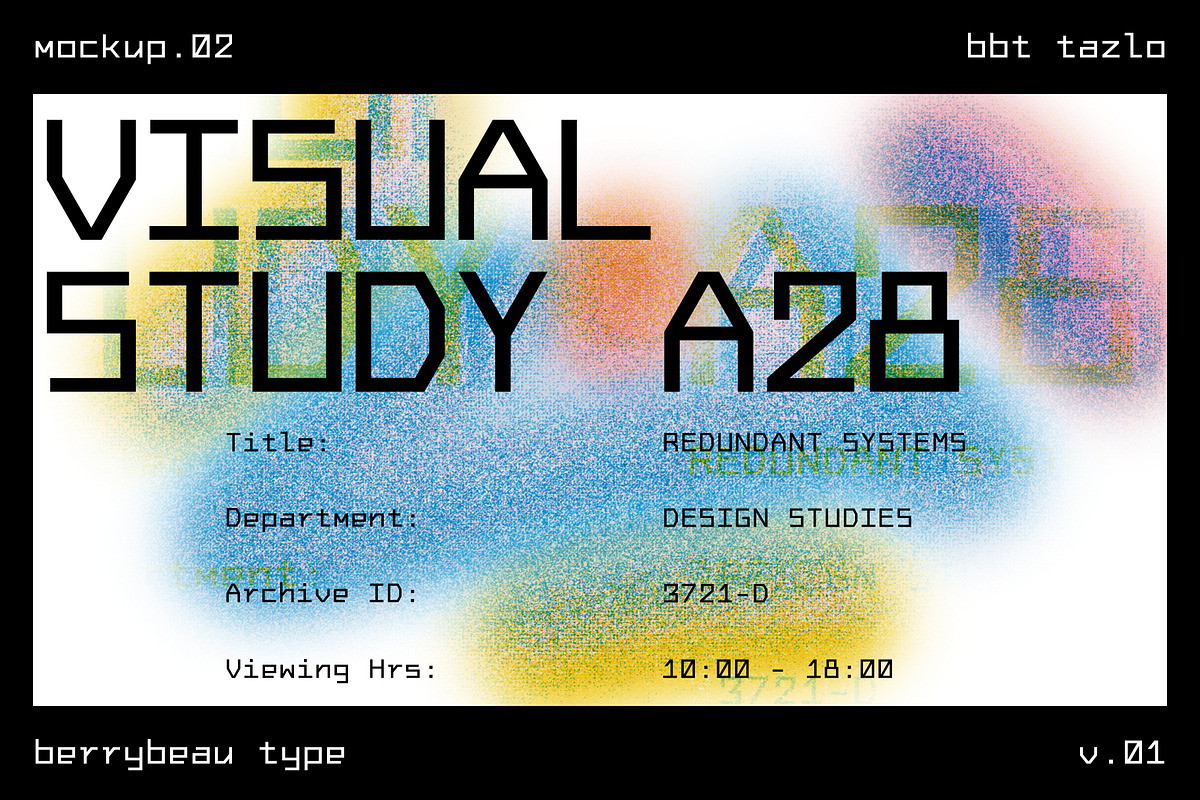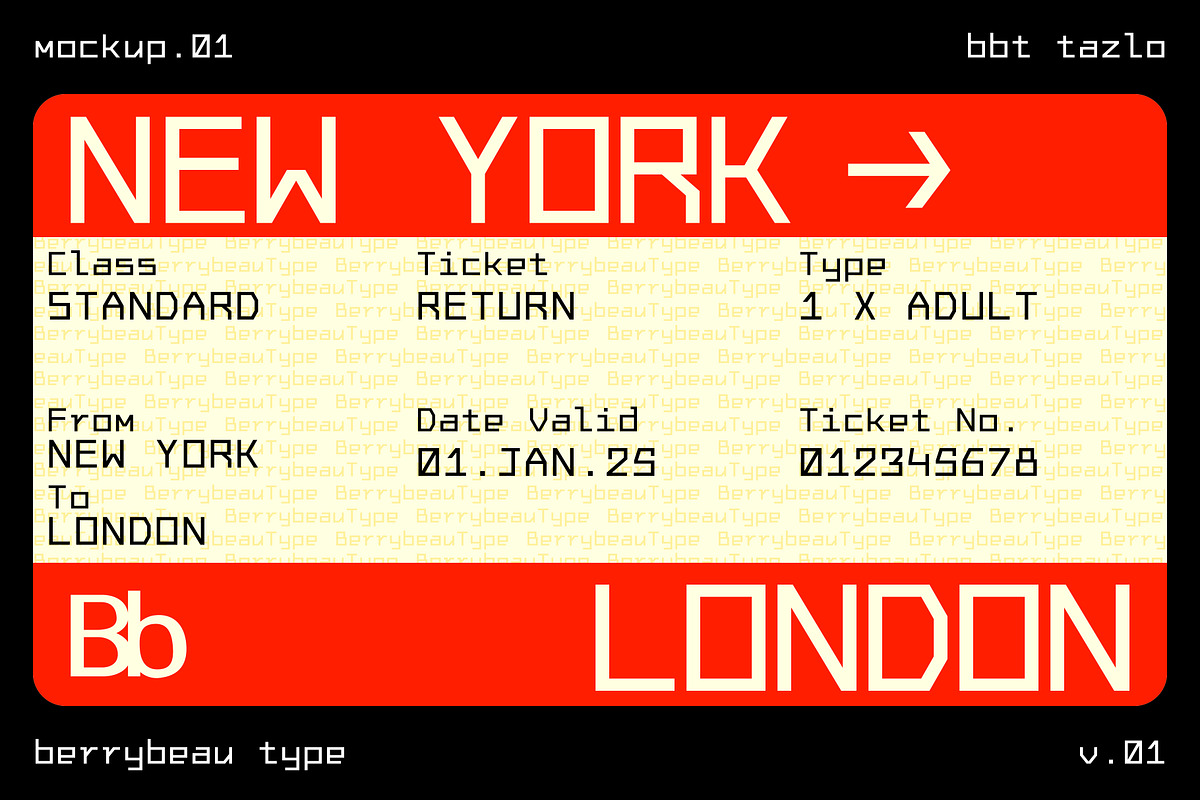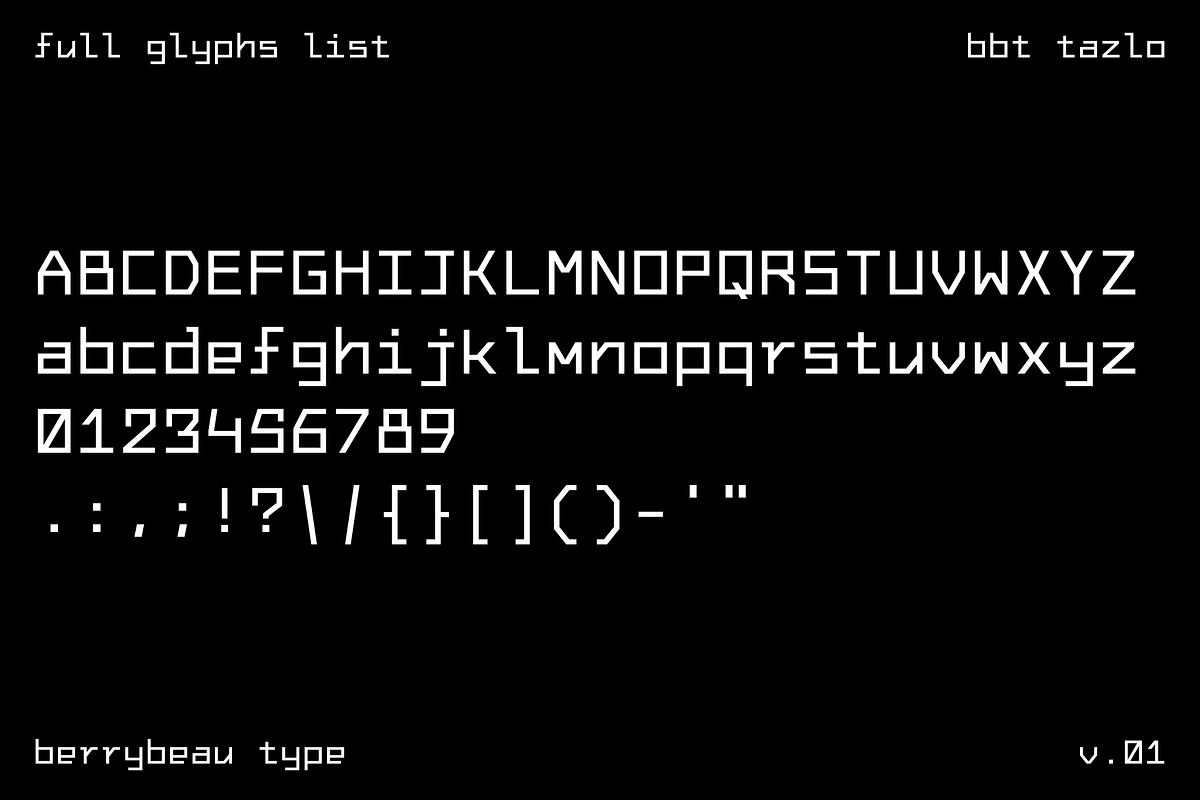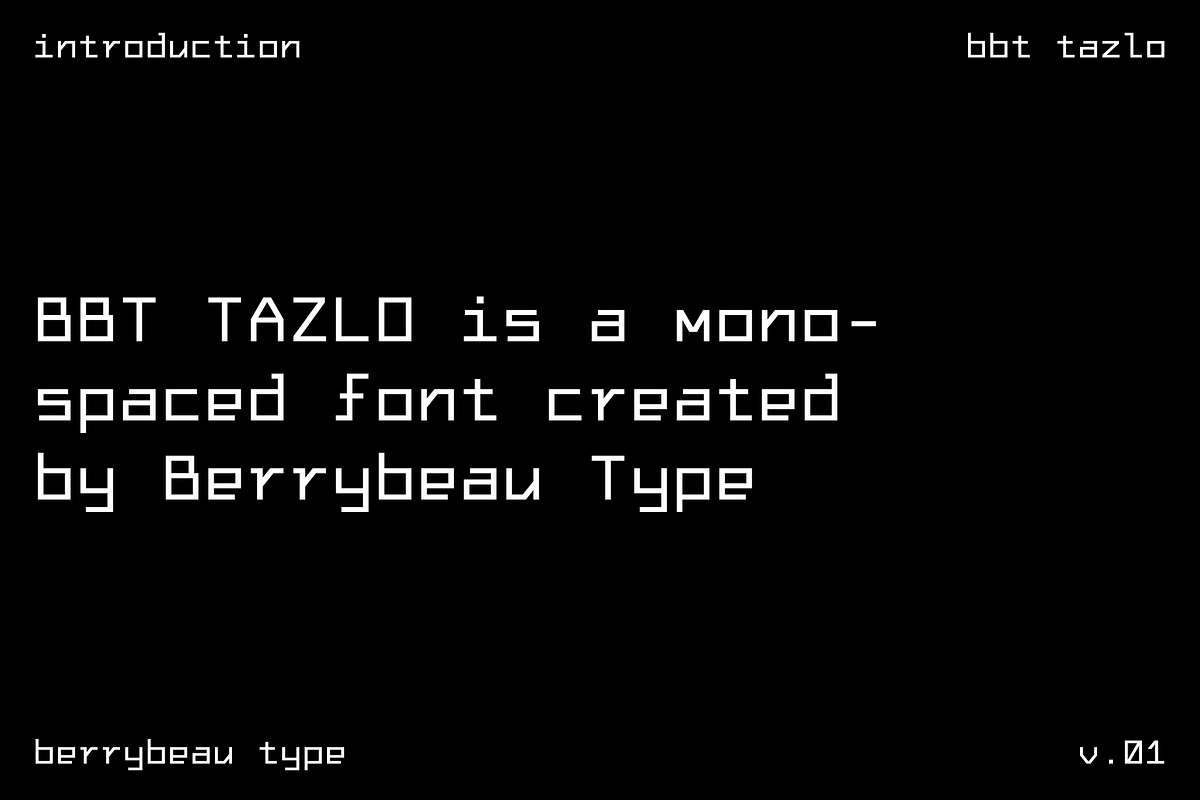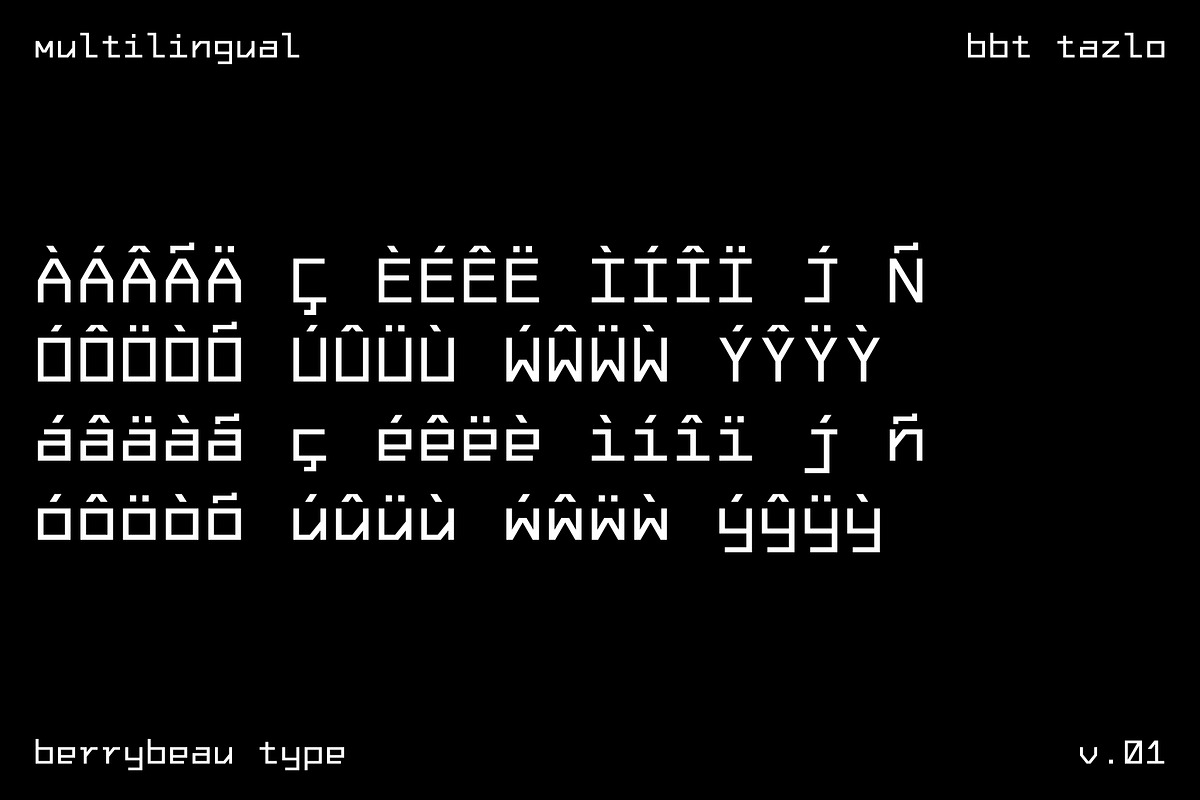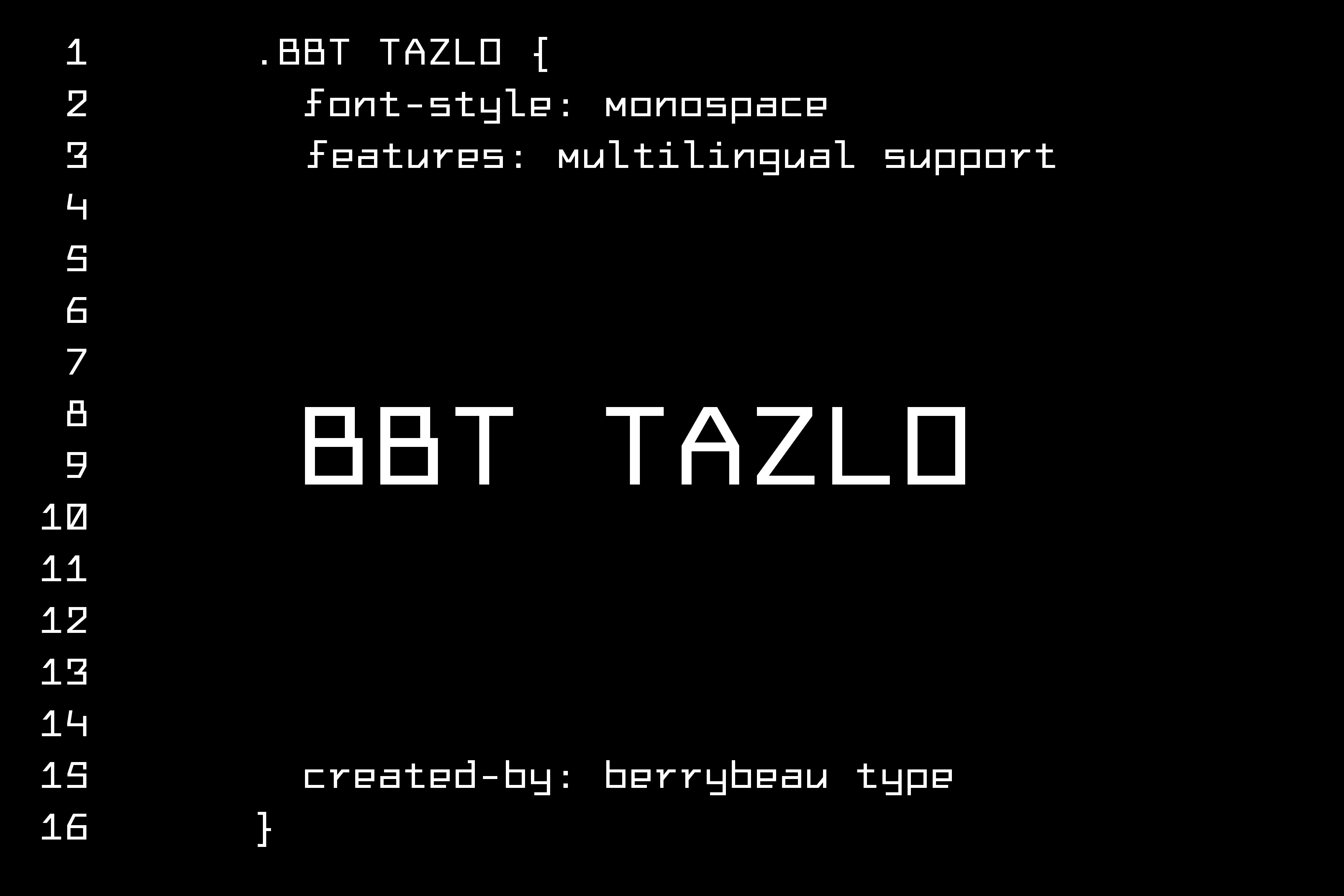
BBT Tazlo - Clean Monospaced Font
BBT Tazlo is a clean, monospaced typeface built from pure geometry—sharp diagonals, clean lines, and no curves. Its bold design emphasises structure and clarity, making it ideal for modern designs, editorial layouts, and brutalist-inspired visuals. BBT Tazlo is where stripped-down form meets striking function.
- Single Weight
- Monospaced Design
- Uppercase, Lowercase, Numbers, & Basic Punctuation